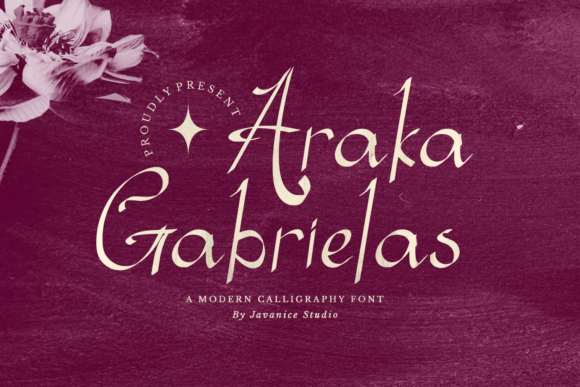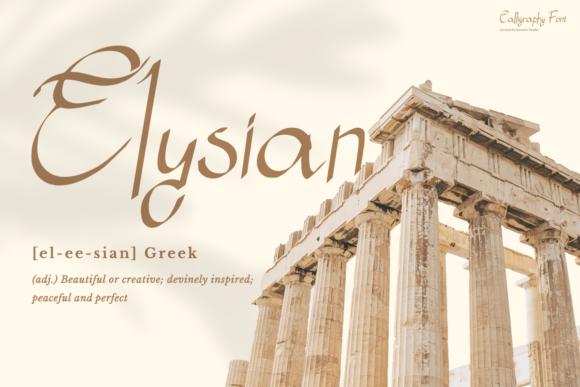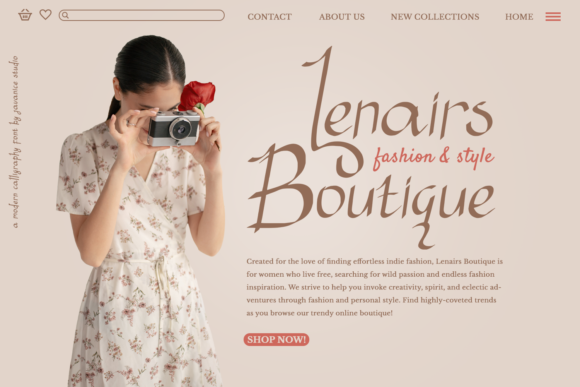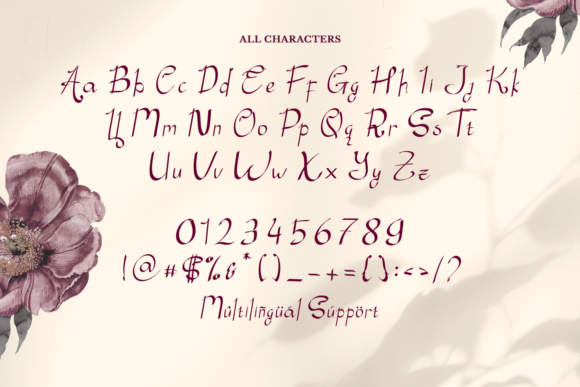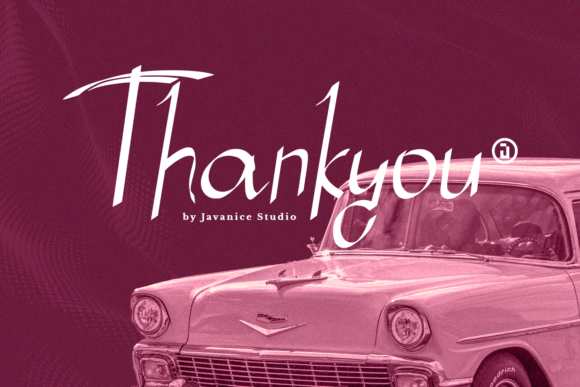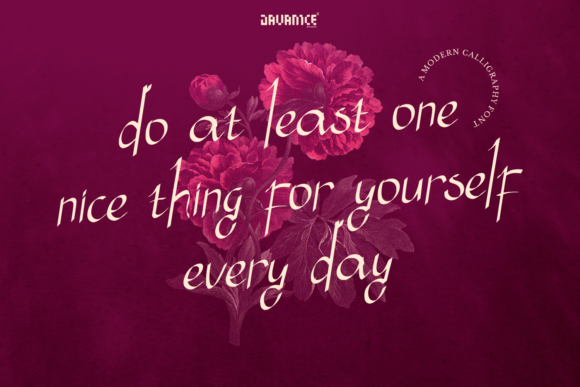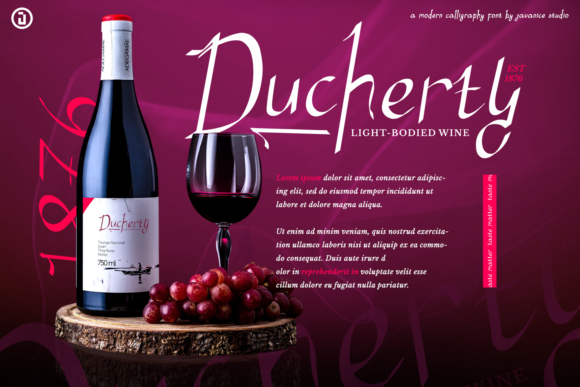
Araka Gabrielas Font
Araka Gabrielas, a superb handwritten font, brings a touch of excellence to your work with its elegant and curvy lines. This font is meticulously crafted to ensure that your projects stand out, offering a perfect blend of style and versatility. Whether you’re working on product packaging, branding projects, magazine covers, social media, weddings, or expressive designs against various backgrounds, Araka Gabrielas is designed to make a lasting impression.
The distinctive charm of Araka Gabrielas lies in its handwritten aesthetic, which adds a personal and authentic touch to your designs. The elegant curves and fluid lines of each character contribute to a visually captivating and harmonious composition, making it an ideal choice for those seeking a balance of sophistication and individuality.
In product packaging, Araka Gabrielas introduces a sense of uniqueness and charm, enhancing the overall visual appeal of your products. Its handwritten style imparts warmth and character to your brand, making it memorable and appealing to consumers.
For branding projects, Araka Gabrielas becomes a powerful asset, creating a signature look that is both stylish and approachable. Its versatility ensures seamless adaptation to different design elements, providing cohesiveness and visual impact to your brand.
Magazine covers benefit from Araka Gabrielas’ standout quality, whether used for headlines, subheadings, or any text requiring a captivating and stylish touch. The handwritten charm adds an extra layer of personality to the publication, making it engaging and eye-catching.
Social media posts come alive with Araka Gabrielas, adding flair and individuality to your messages. Whether you’re sharing quotes, promotions, or creative content, this font enhances the visual impact, making your posts stand out in the digital landscape.
For weddings, Araka Gabrielas imparts a romantic and personal feel to invitations, place cards, and other stationery. Its elegant handwritten style creates an intimate and memorable atmosphere for the celebration.
Araka Gabrielas is more than just a font; it’s a design companion that transforms your ideas into visually stunning and expressive works of art. Let the superb elegance of Araka Gabrielas be the key to making your projects truly exceptional.